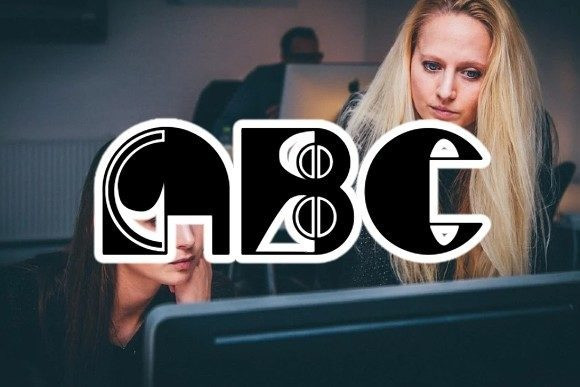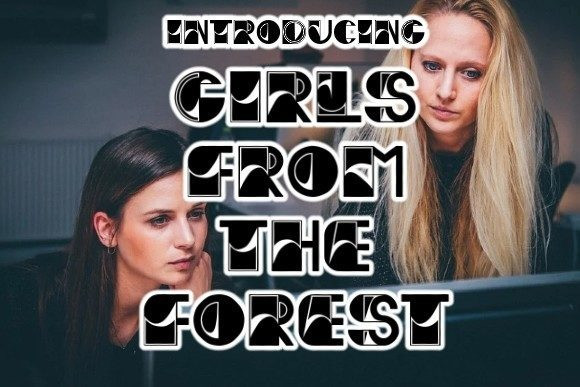
Girls From The Forest Font
Girls From The Forest Font is a modern and sharp-looking display font that will truly inspire your work. Use this font for your designs and explore its endless possibilities.